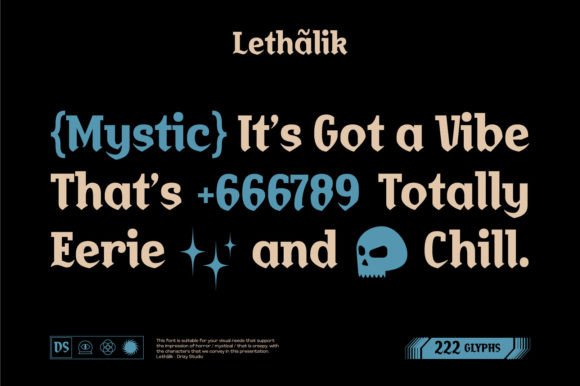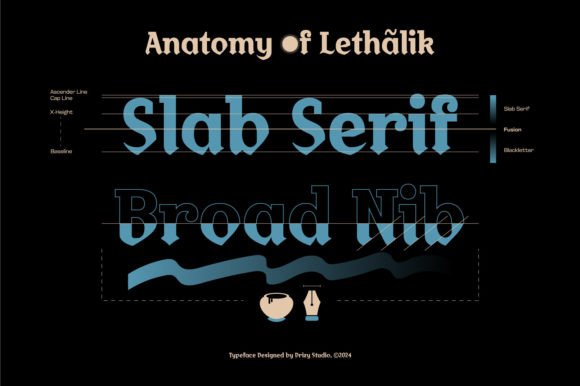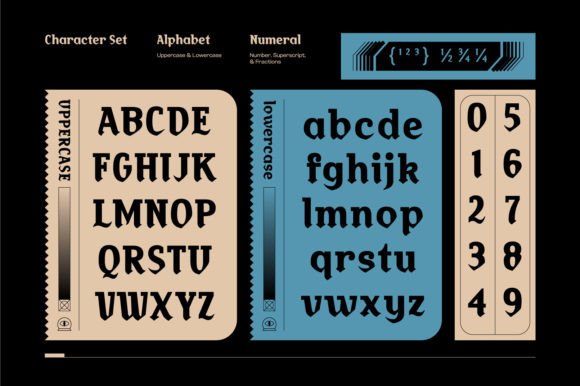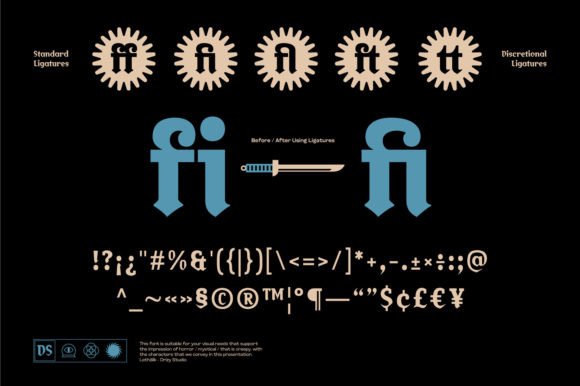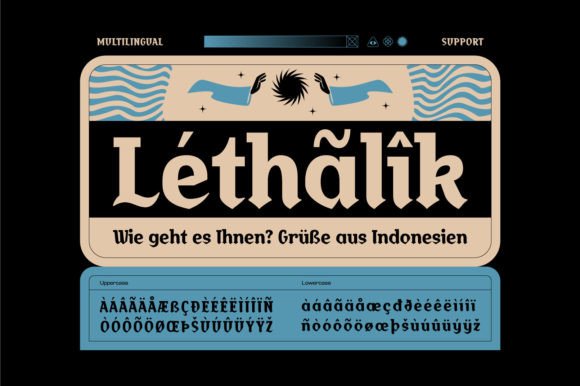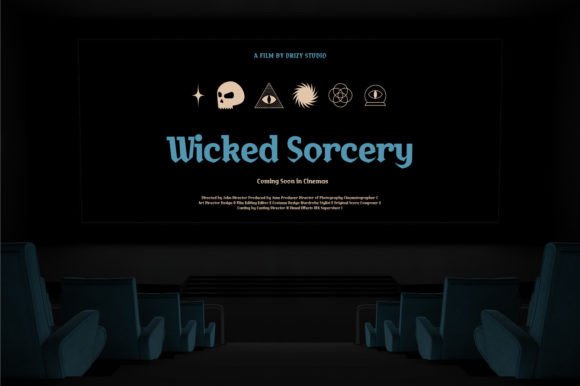
Introduction to Lethalik Font
Lethalik is a bold and captivating typeface perfect for any Halloween-themed design.
Its sharp, gothic-inspired letterforms exude a sense of mystery and dark elegance, making it ideal for spooky posters, eerie invitations, and other haunted creations The experimental touches add a modern twist to the traditional black letter style, giving it an edgy, unpredictable feel.
Key Features of Lethalik Font
Why Choose Lethalik Font?
Lethalik Font offers exceptional quality and versatility, making it a valuable addition to your design toolkit. Whether you’re creating for personal projects or commercial use, Lethalik Font delivers professional results.